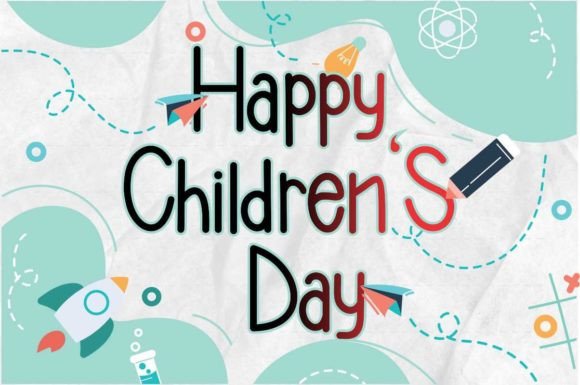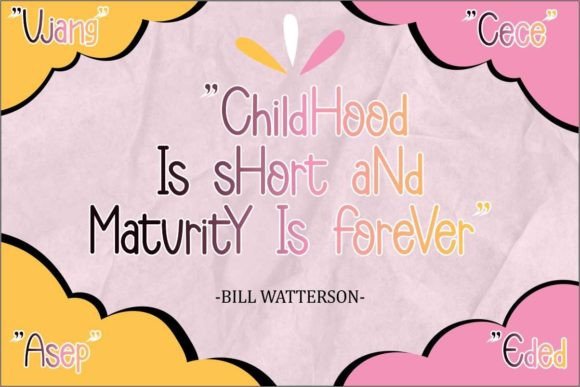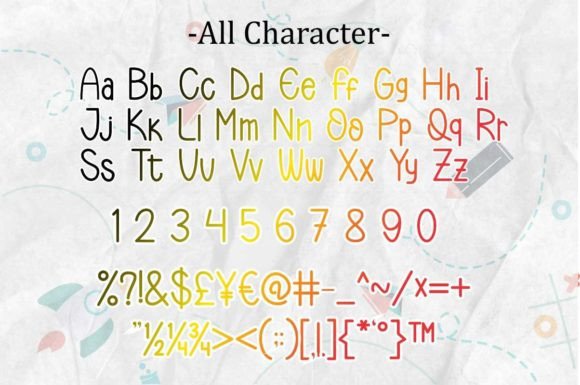
Introduction to Childhood Friends Font
Childhood Friends is a cute and fun handwritten font.
These characters will add a sense of joy to your creations Add this beautiful font to your library and use it to create unique typography for all kinds of projects like t-shirt designs, childrenโs books, and more.
Key Features of Childhood Friends Font
Why Choose Childhood Friends Font?
Childhood Friends Font offers exceptional quality and versatility, making it a valuable addition to your design toolkit. Whether you’re creating for personal projects or commercial use, Childhood Friends Font delivers professional results.